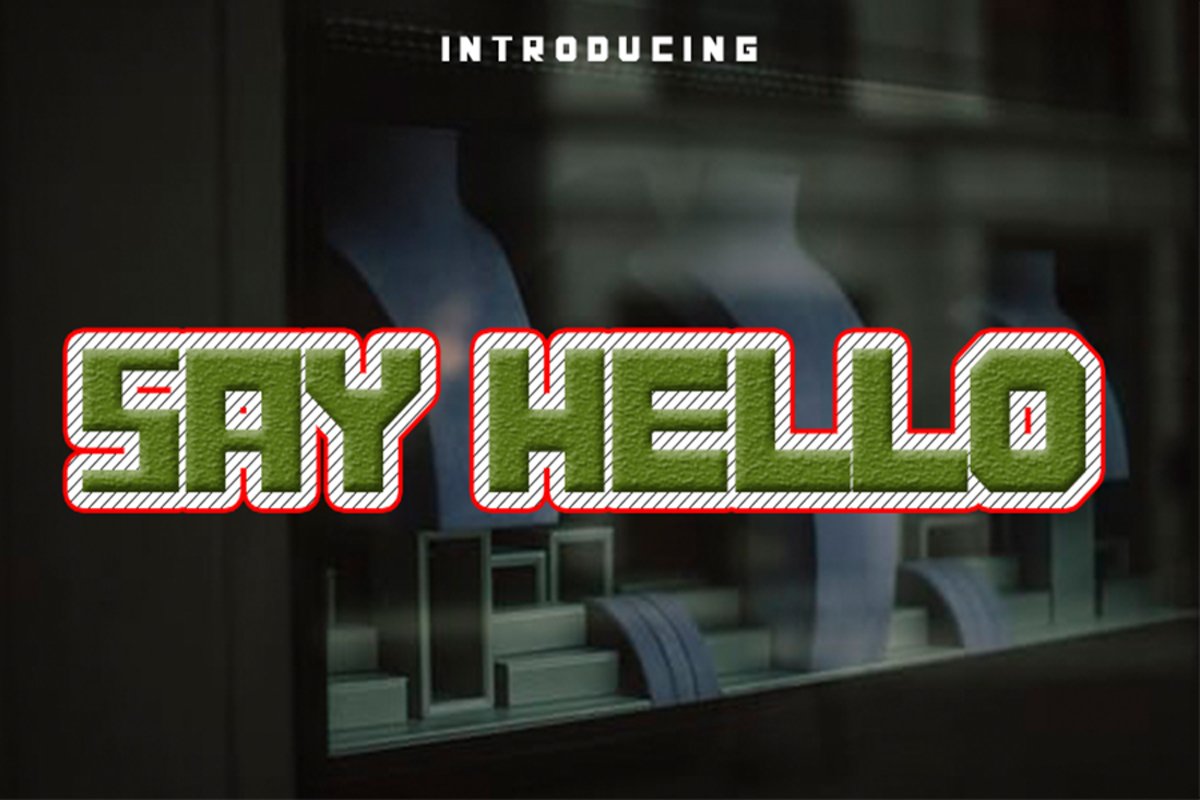
Say Hello
SAY HELLO
Say Hello embodies fun, quirkiness and authenticity. It will look particularly adept when used in logos, branding, packaging design, and much more. This masterfully designed display font is a true must-have.